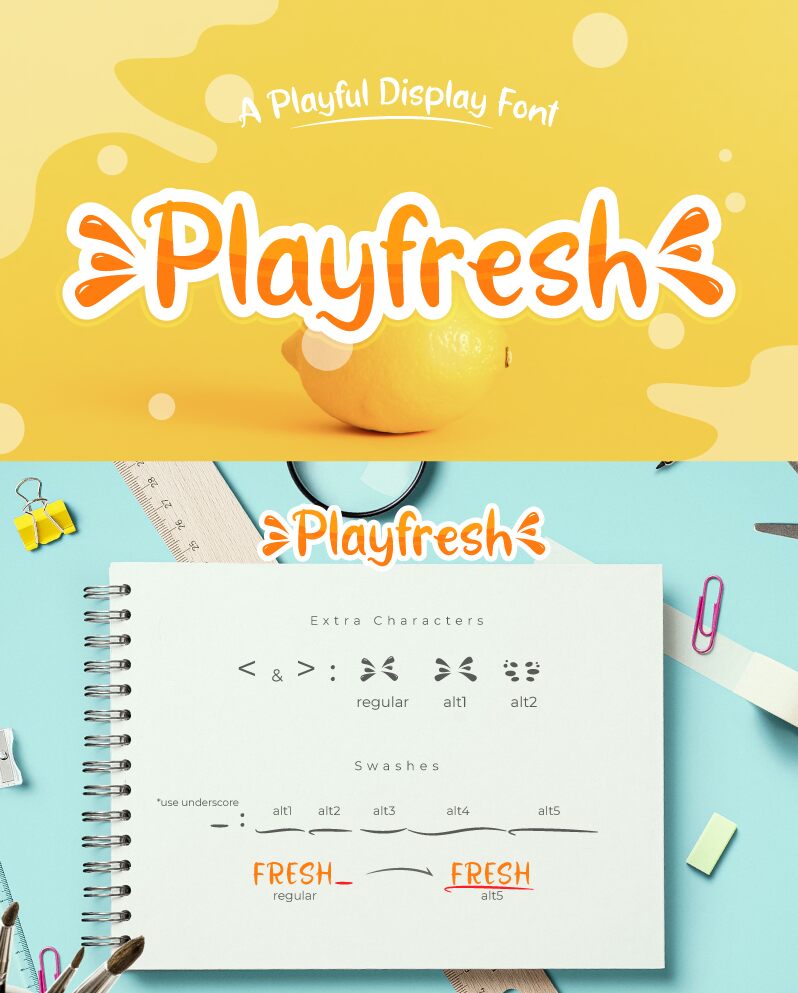
Looking for a font that's both playful and modern? Look no further than Playfresh, the latest creation from Salamahtype.com. With its smooth brush style, this font brings a fresh and vibrant energy to any project. Playfresh is perfect for everything from social media graphics to packaging design, and its semi-bold typeface makes it easy to read at any size. Whether you're crafting a new brand identity or adding some flair to your website, Playfresh is the perfect choice for anyone looking to make a bold statement with their typography.